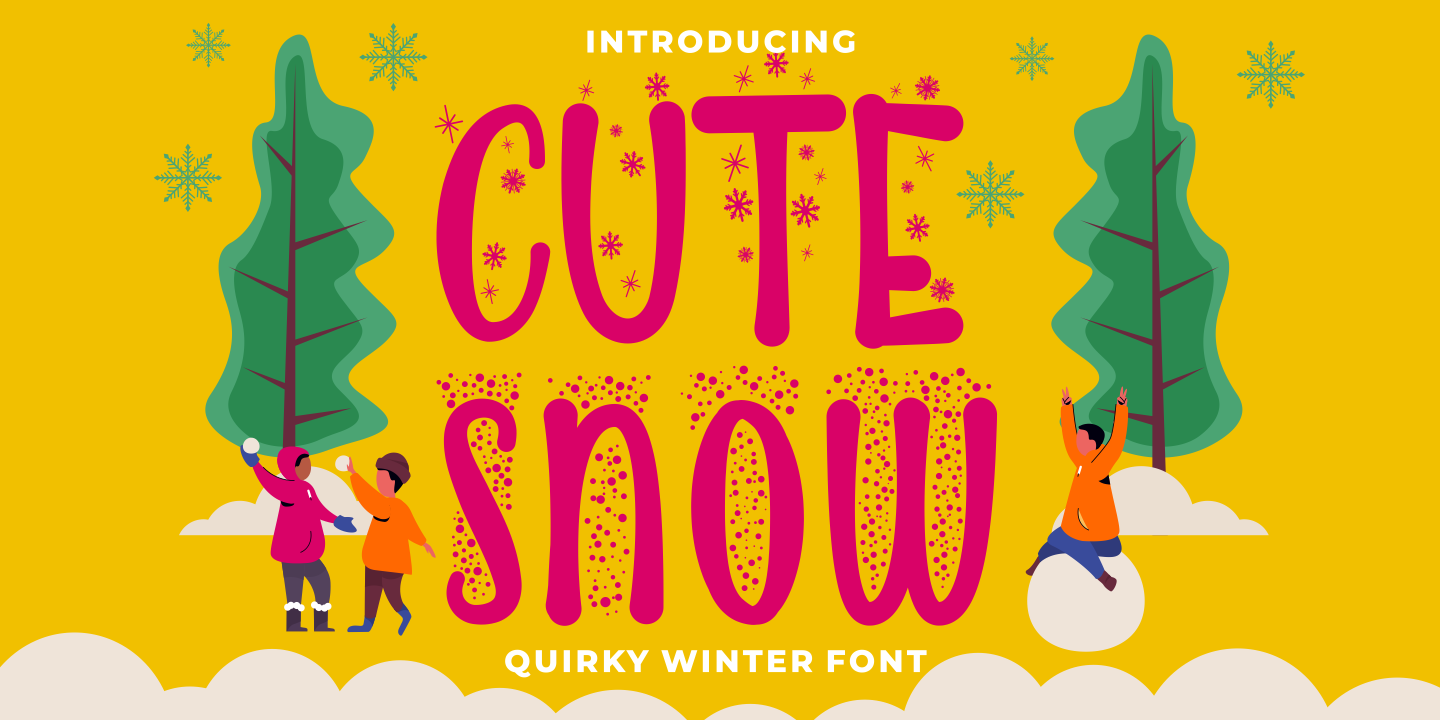
Cute Snow Font is perfect for winter holiday cards, children's Christmas books, cozy café branding, winter festival promotions, snow resort marketing, holiday party invitations, seasonal retail displays, winter clothing brands, and any project requiring typography with adorable winter charm and heartwarming seasonal aesthetics.
What makes Cute Snow Font exciting is its heartwarming winter magic that captures the innocent joy and cozy comfort of snowy days with playful letterforms that seem dusted with fresh snowflakes and filled with childlike wonder. This delightful typeface embodies the pure happiness of winter celebrations with soft, rounded characters that evoke warm mittens, hot cocoa, and the gentle beauty of falling snow. The font's adorable character and seasonal charm make it perfect for projects celebrating winter festivities, family traditions, and the magical atmosphere of snowy landscapes.
The Cute Snow Font family includes regular and bold weights, featuring complete uppercase and lowercase alphabets, numerals, punctuation marks, and winter-themed decorative elements. The font maintains consistent cozy charm throughout all weights while ensuring excellent readability for both cheerful headlines and warm text applications in holiday and seasonal contexts.
Whether you're designing for winter celebrations, creating holiday product packaging, or developing seasonal branding with adorable winter aesthetics, Cute Snow Font Free Download brings unmatched seasonal joy and winter warmth to your projects. This charming typeface transforms ordinary text into delightful expressions of winter happiness that capture the magical spirit of snowy seasons and holiday celebrations. The font's adorable character makes it ideal for children's brands, holiday retailers, and winter entertainment venues. Download this exceptional font today and bring the heartwarming magic of cute winter charm to your design projects with authentic seasonal joy and snow-dusted elegance.